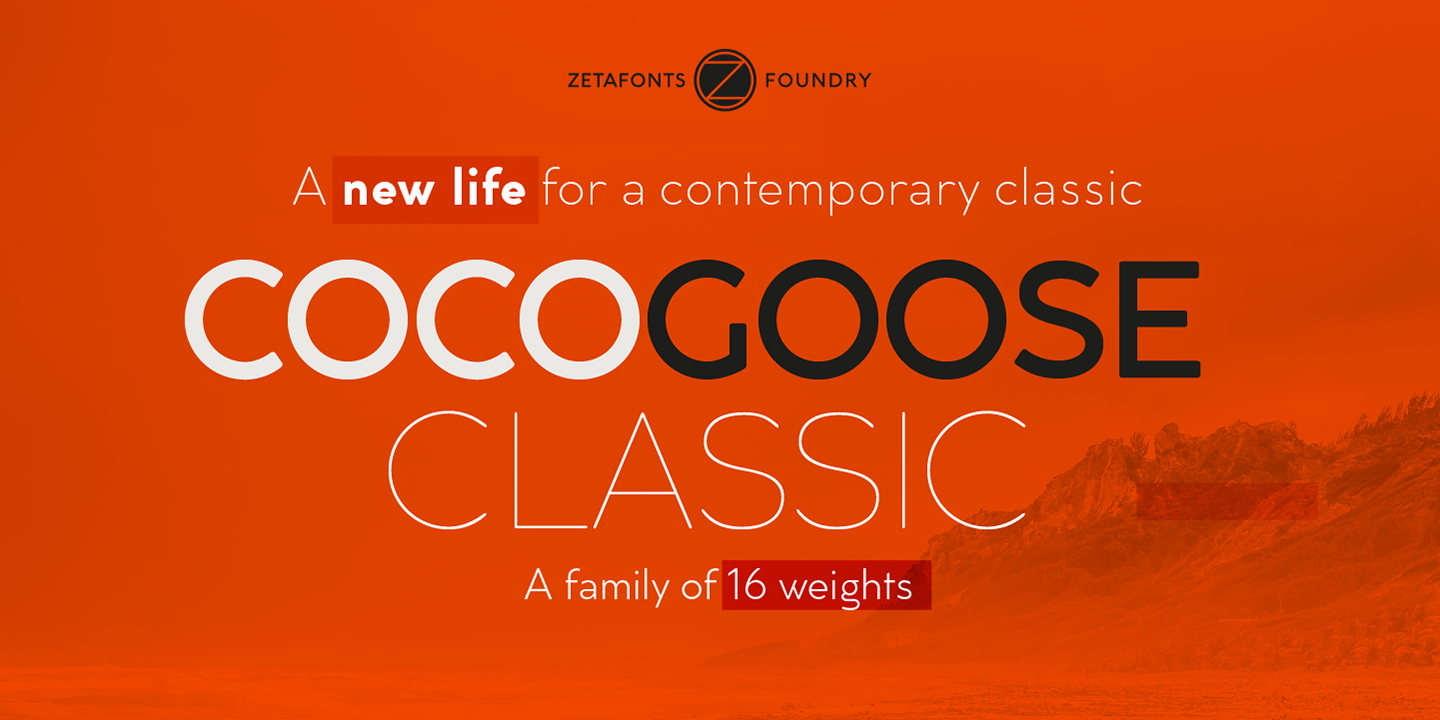
Cocogoose Classic Font is perfect for fashion branding, luxury packaging, high-end advertising, sophisticated logos, premium magazines, elegant business cards, upscale product catalogs, refined website headers, and prestigious corporate communications. This refined typeface brings geometric elegance and contemporary sophistication to projects requiring modern luxury appeal and distinctive visual presence.
What makes Cocogoose Classic Font exciting is its geometric precision that combines Art Deco inspiration with contemporary minimalism to create timeless sophistication and modern luxury appeal. The font features perfectly balanced letterforms with clean geometric construction and elegant proportions that command attention while maintaining refined subtlety. Its distinctive character and upscale personality make it irresistible for luxury brands seeking typography that communicates exclusivity and premium quality through sophisticated design language.
The Cocogoose Classic Font family includes refined weights and elegant styles: Ultralight, Light, Regular, Medium, Semibold, Bold, and Black variations with condensed and extended options. Each weight maintains the font's sophisticated character while offering designers premium flexibility for luxury branding and high-end design applications across various premium touchpoints.
Whether you're designing for luxury markets or premium services, Cocogoose Classic Font Free Download provides designers with an elegant, luxury-focused typeface solution. The font's geometric aesthetics and refined styling make it ideal for fashion houses, luxury hotels, premium automotive brands, and exclusive lifestyle companies. Its distinguished presence ensures your message communicates sophistication and exclusivity while maintaining exceptional legibility. The comprehensive character set includes stylistic alternates and luxury symbols, making it perfect for creating prestigious headlines and brand identities that resonate with discerning audiences seeking refined experiences and premium quality products.